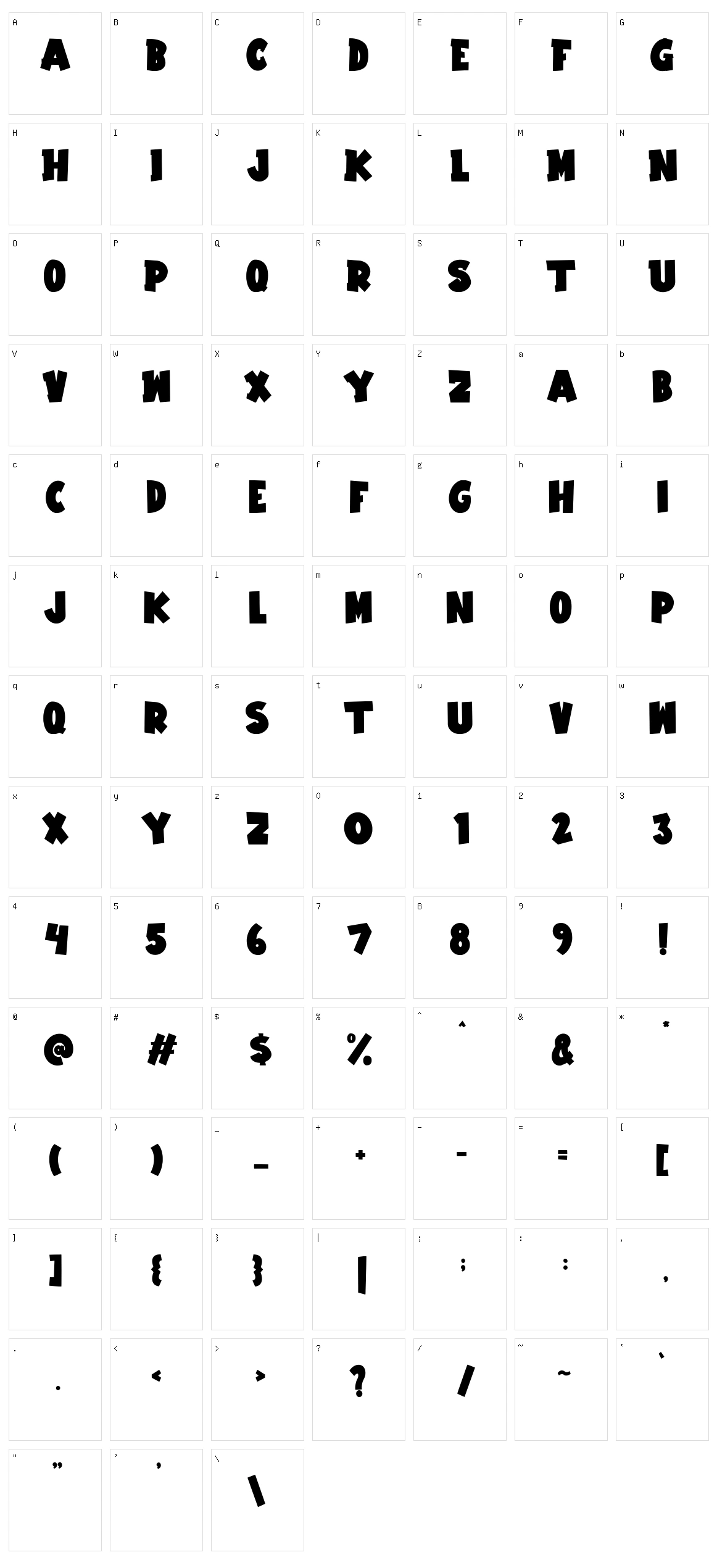
The free font Funny Party is carefully designed by Asep Rendi, showcasing a thoughtful balance of creativity and usability and falls under the Cartoon font style. When you download the ZIP file, it contains only 39.36 KB of font files, making it lightweight and quick to download. Please review the license details below to understand permitted usage and distribution rights. If license information is not available, we recommend using this font for personal projects only or contacting the author directly for commercial usage permissions.